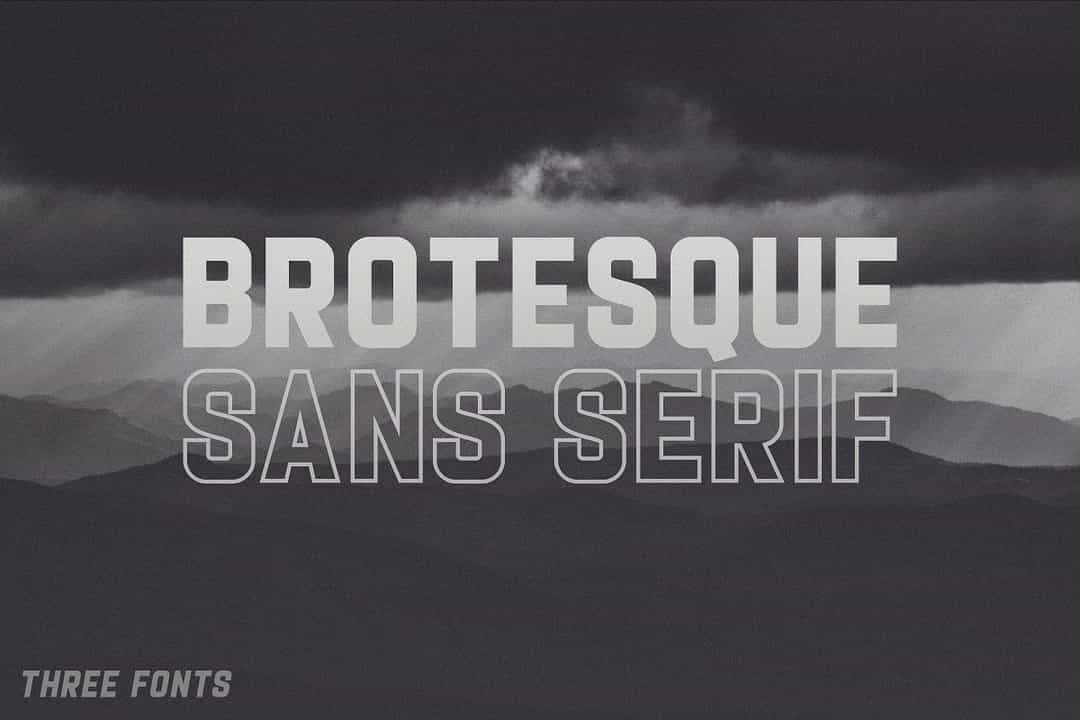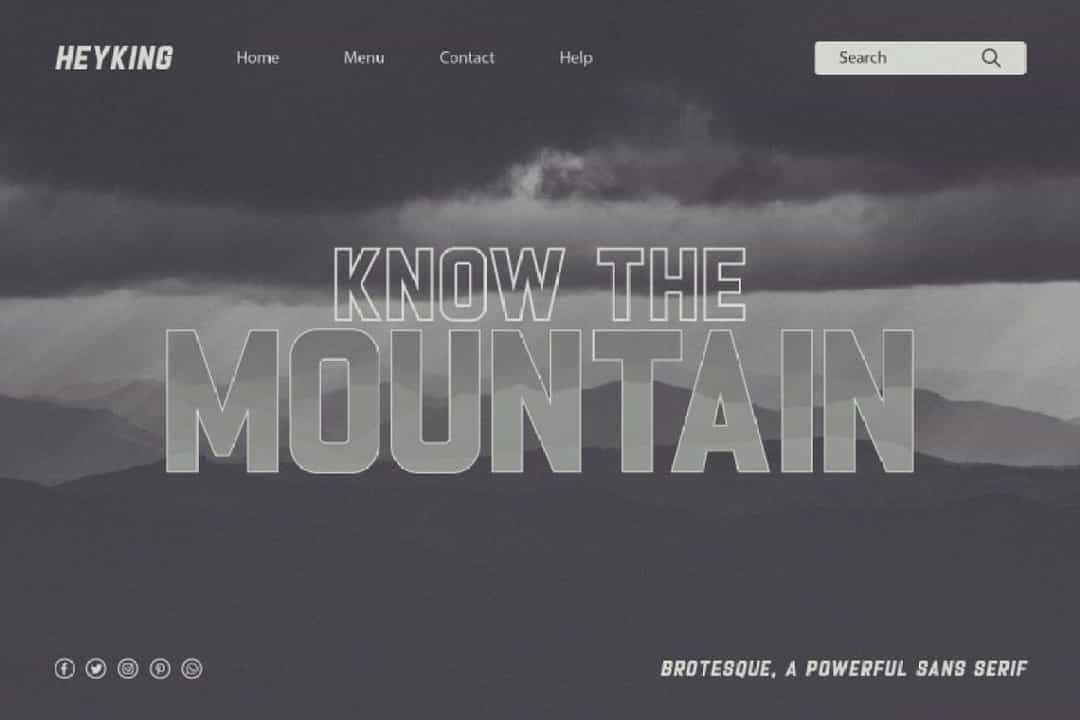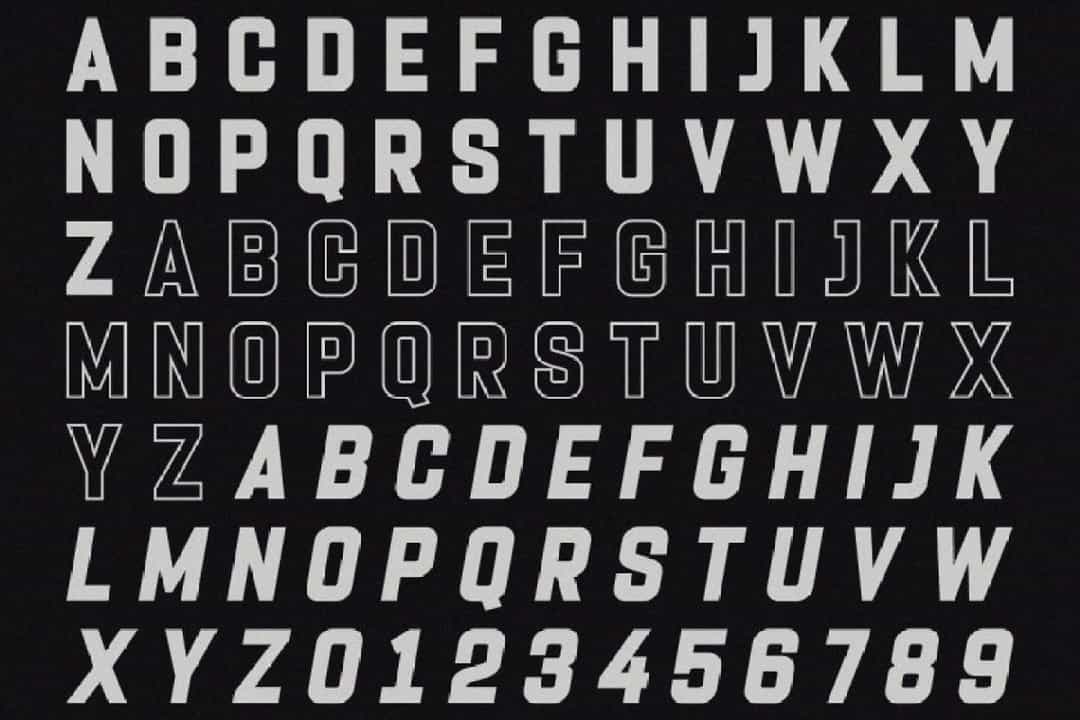
Brotesque Sans Serif Font is an elegant font with contemporary features that is both modern and strong. Inspired by traditional writing styles with beautiful designs, we bring modern aesthetic to every character, number and letter in this font family.